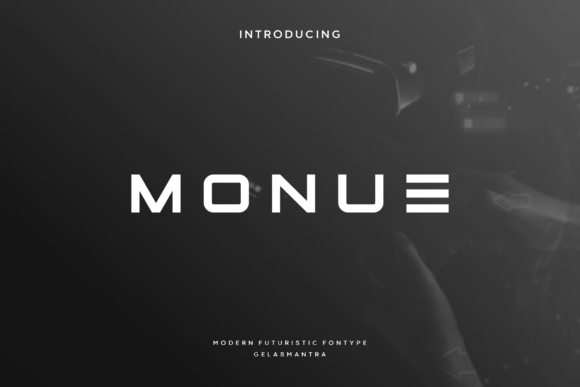
Welcome to the realm of typography, where letterforms dance in harmony, captivating the eyes and igniting the imagination. Among the myriad of fonts that grace the digital world, Monue Font stands tall — a symphony of modernity, elegance, and futuristic allure. Created by the visionary artisans at Garismantra, Monue is not just a font; it's an expression of artistry that transforms your designs into masterpieces.
Experience the allure of a font that embodies the essence of contemporary style. Its bold strokes and clean lines create a striking visual impact, leaving an indelible impression on your audience. Whether you're crafting web designs, fashioning business cards, or seeking a unique touch for any project, Monue Font is your muse.
Dive into the depths of Monue's sophisticated concepts and be mesmerized by its elegant shapes. This font is a testament to the power of innovation, effortlessly blending timeless aesthetics with a futuristic flair. Embrace the boundless possibilities of creating designs that resonate with the spirit of the future.
Unleash your creativity and let Monue Font elevate your work to new heights of professionalism. Its versatility knows no bounds, adapting seamlessly to a wide array of design projects. From sleek logos that command attention to captivating posters that ignite imaginations, Monue is your trusted companion in the realm of visual communication.
Immerse yourself in the world of Monue Font and unlock a treasure trove of design possibilities. Its bold and contemporary spirit will transform your projects into captivating expressions of modern art. Let Monue be your guide as you navigate the ever-evolving landscape of design, leaving an indelible mark on the hearts and minds of your audience.